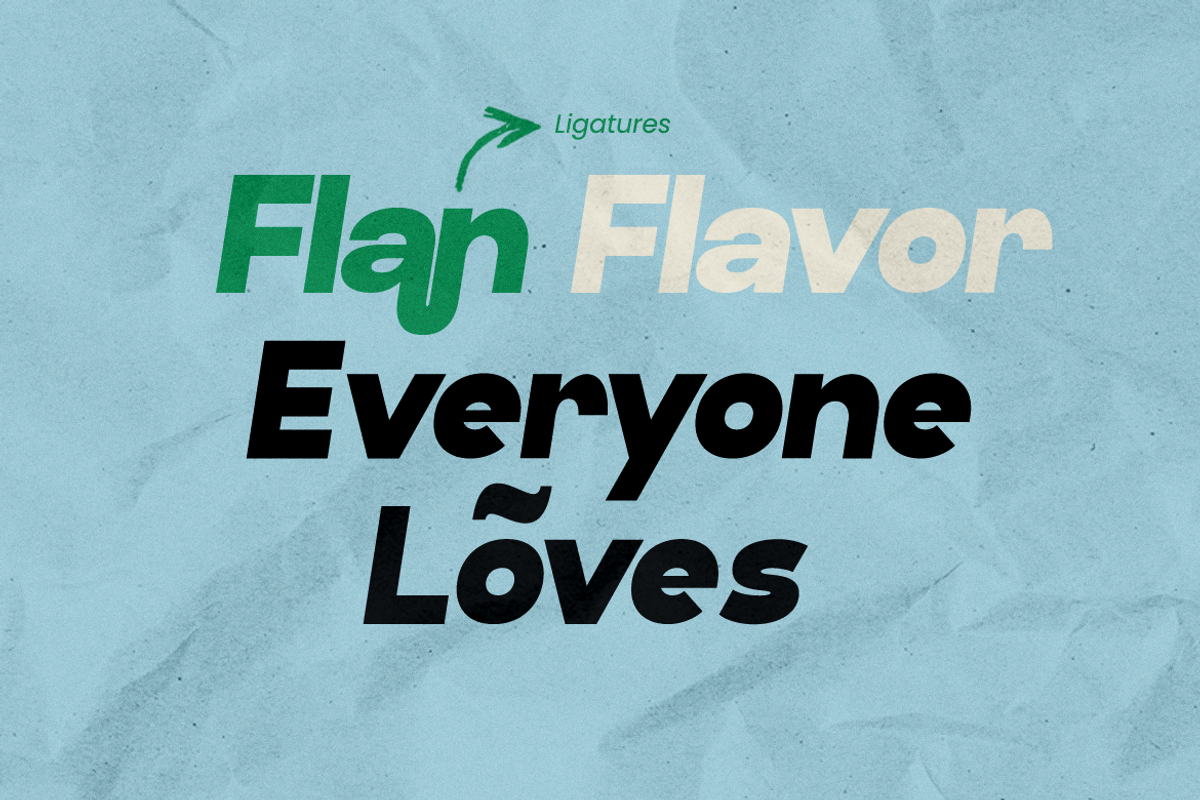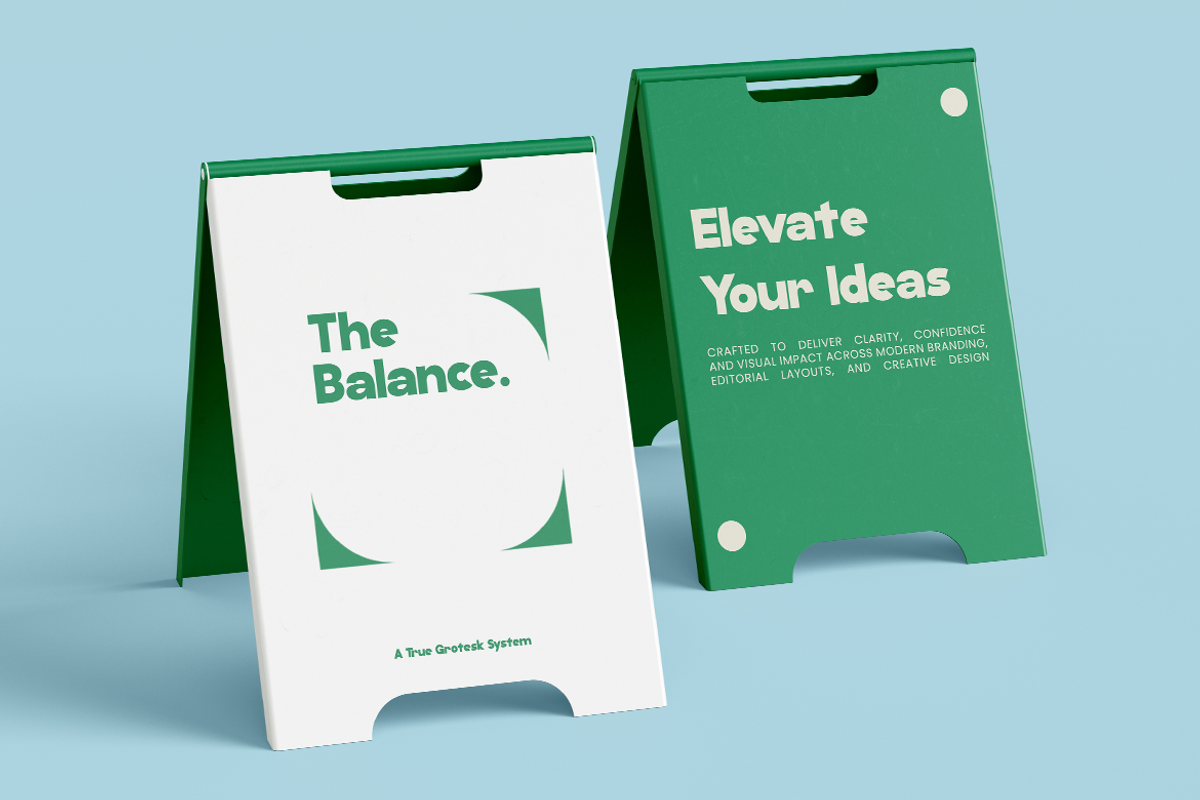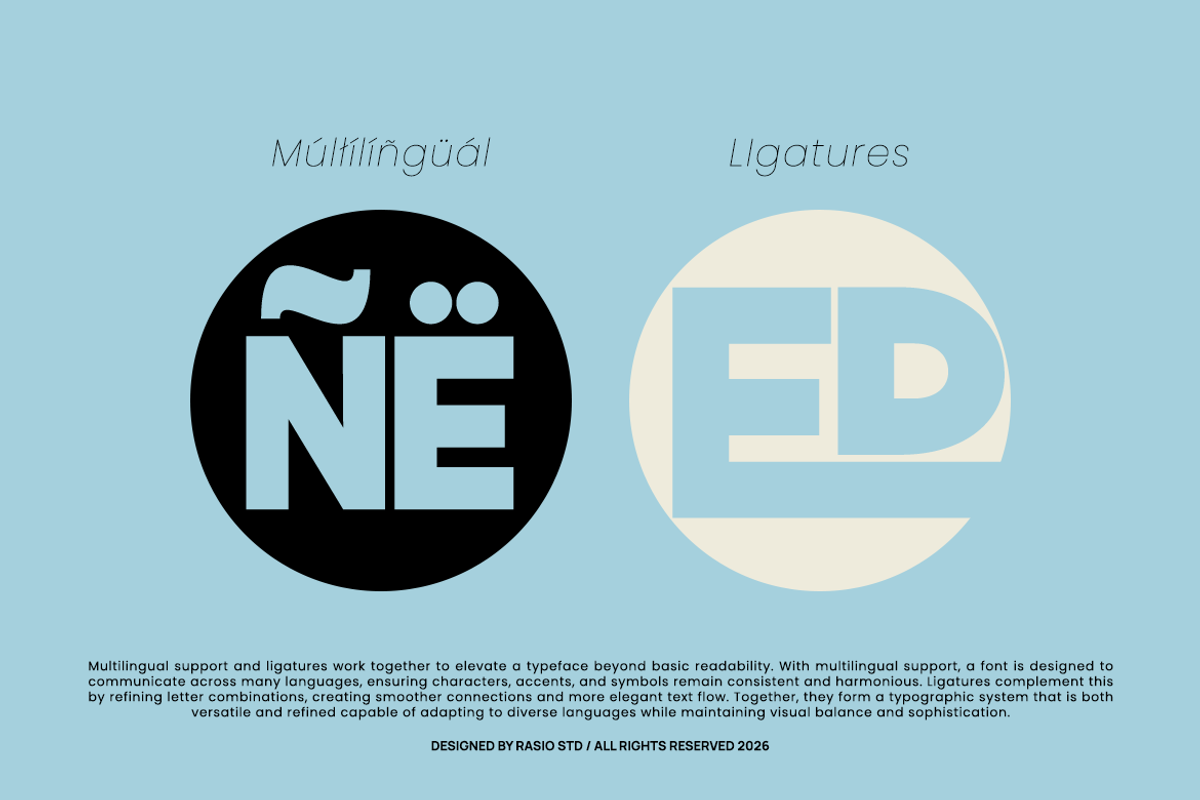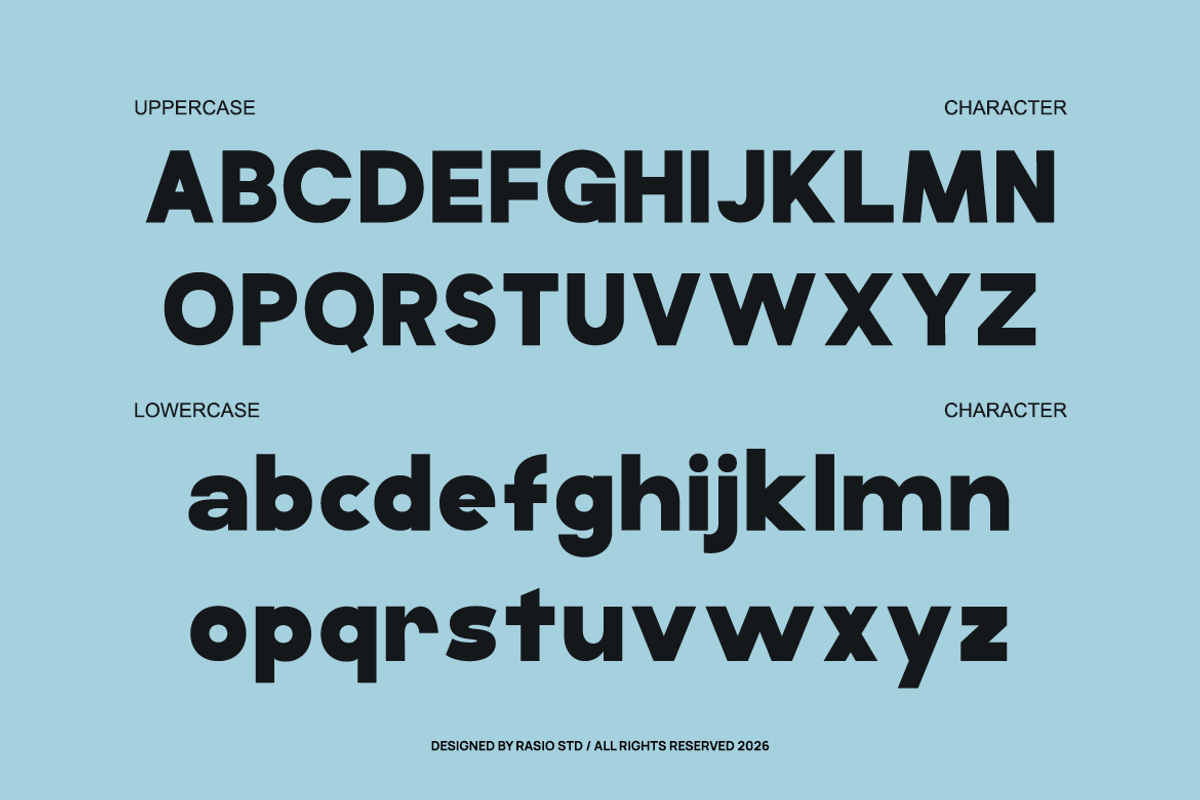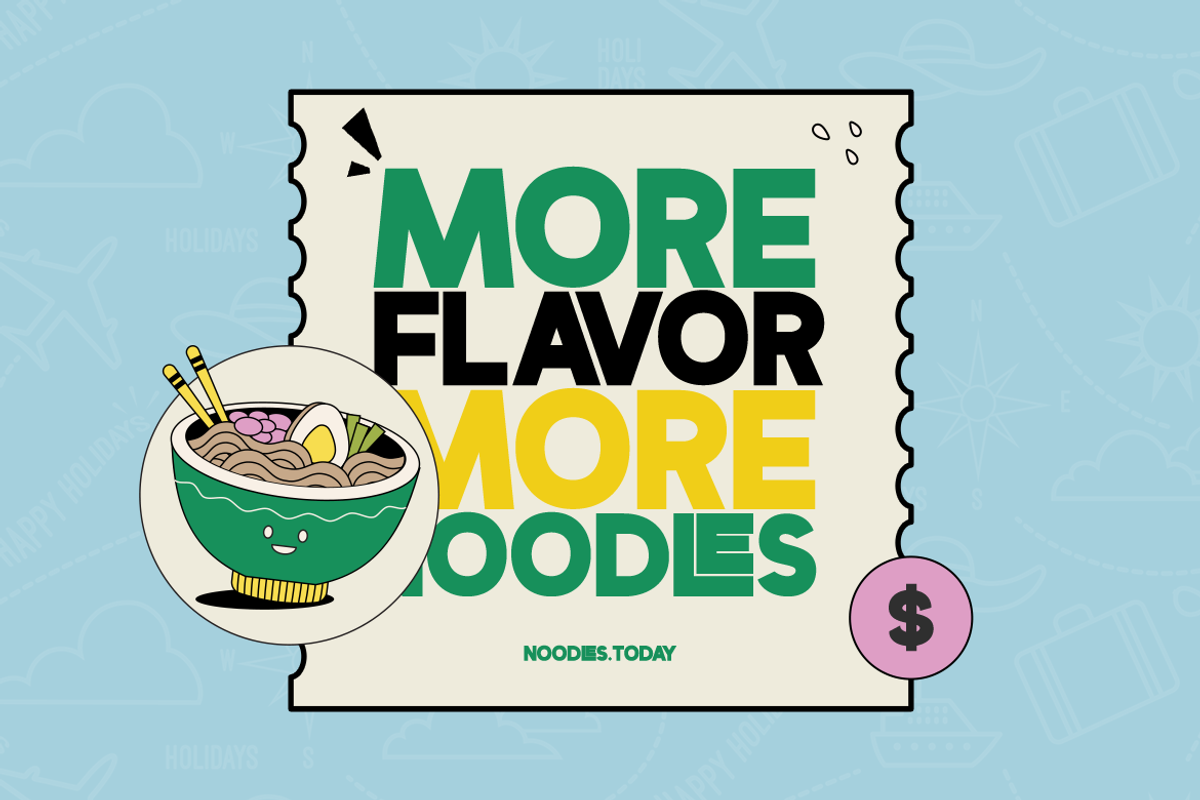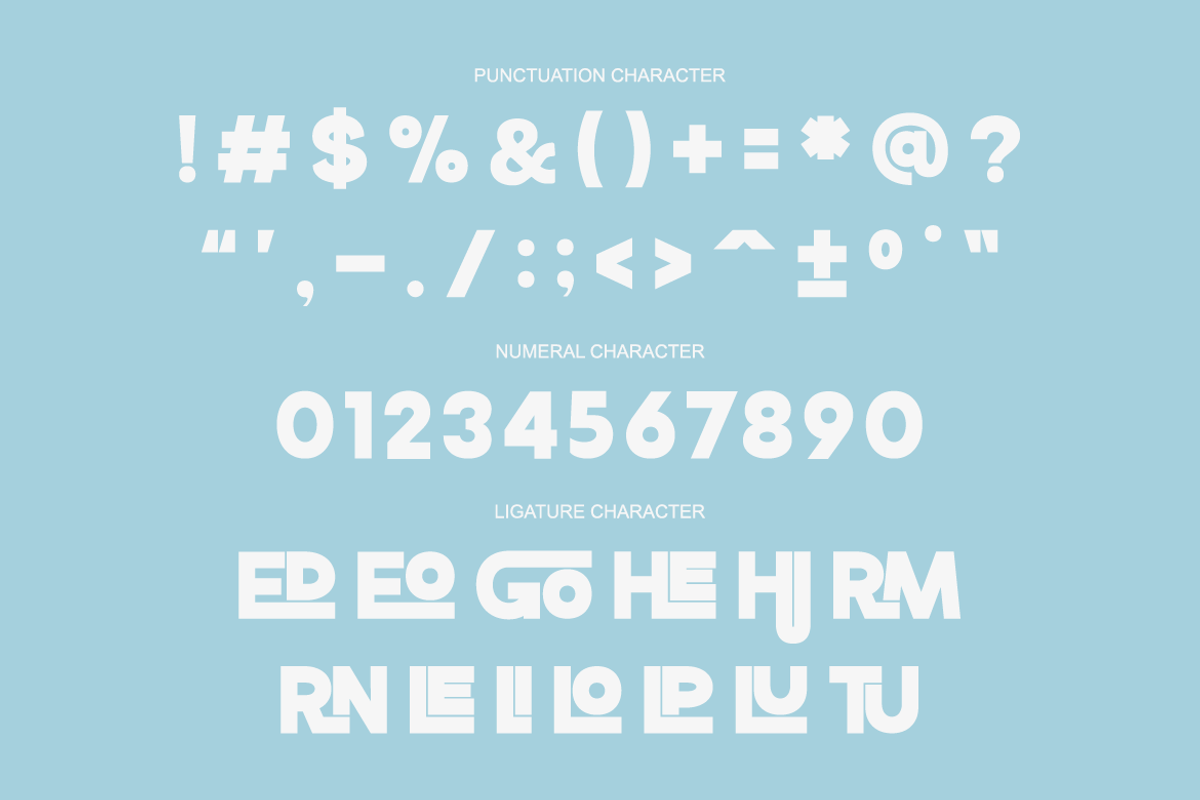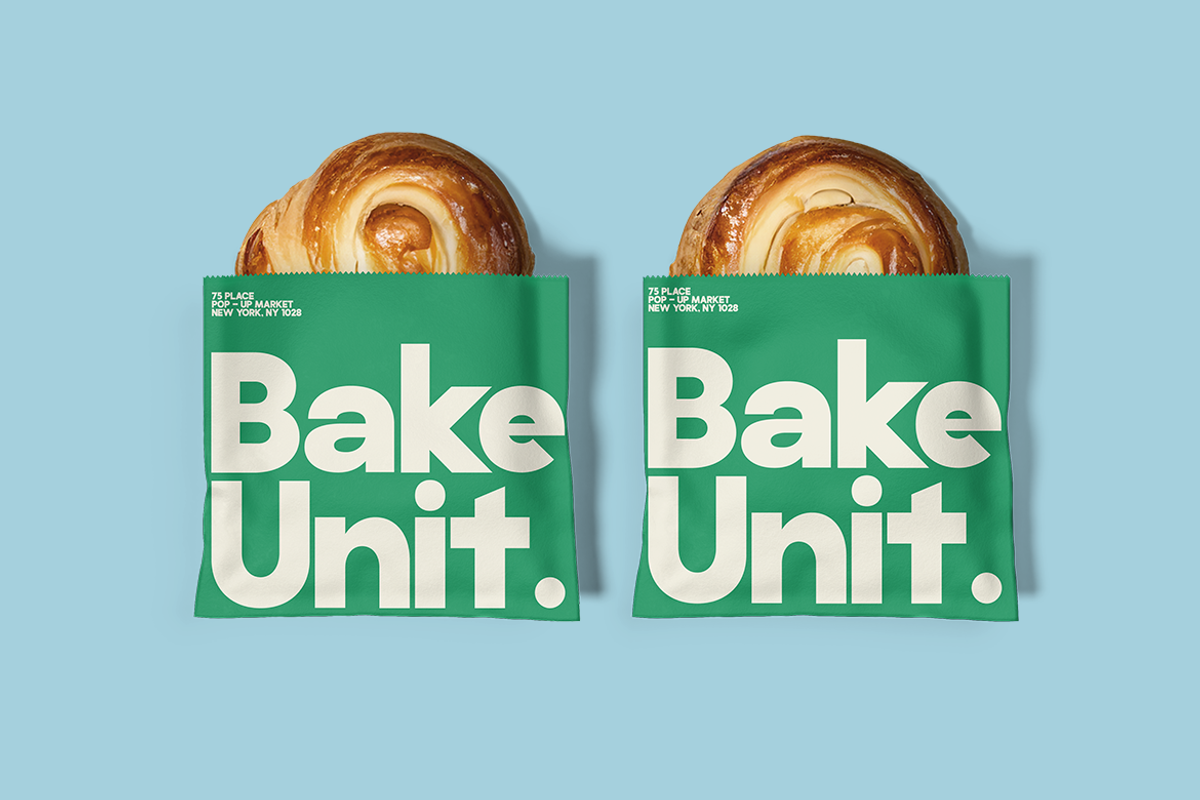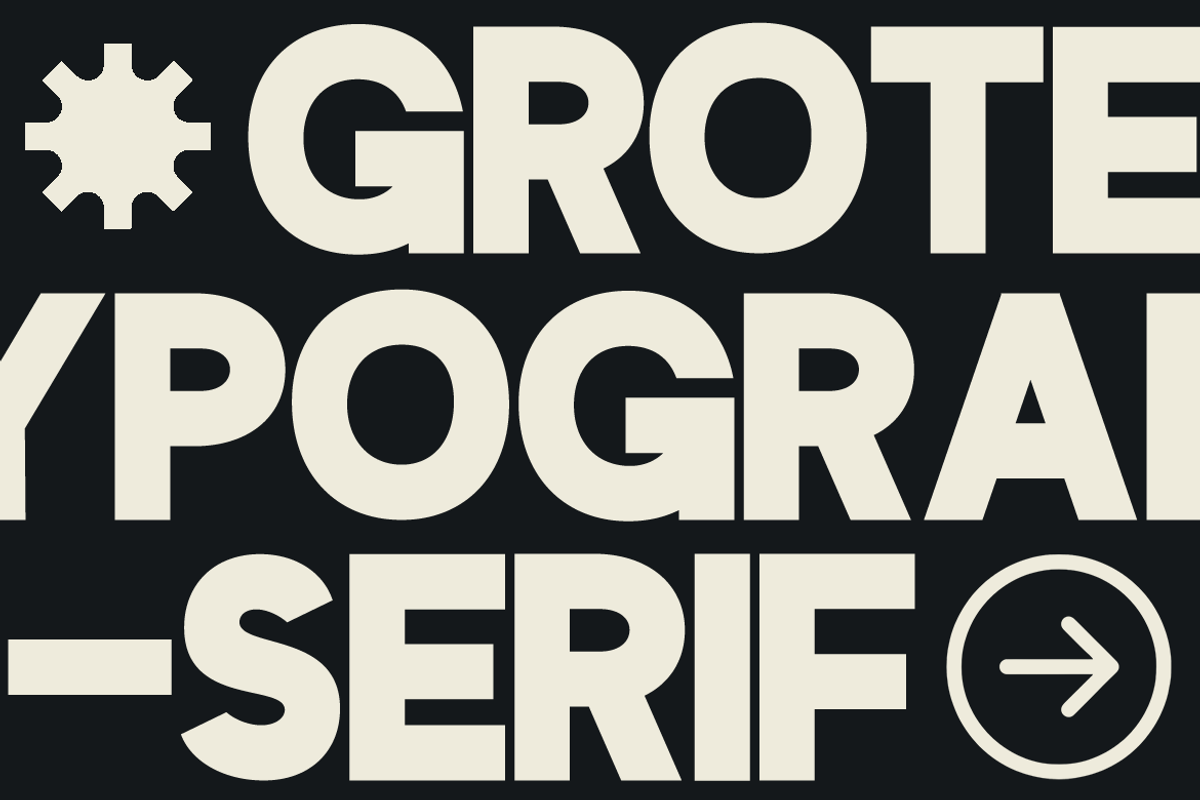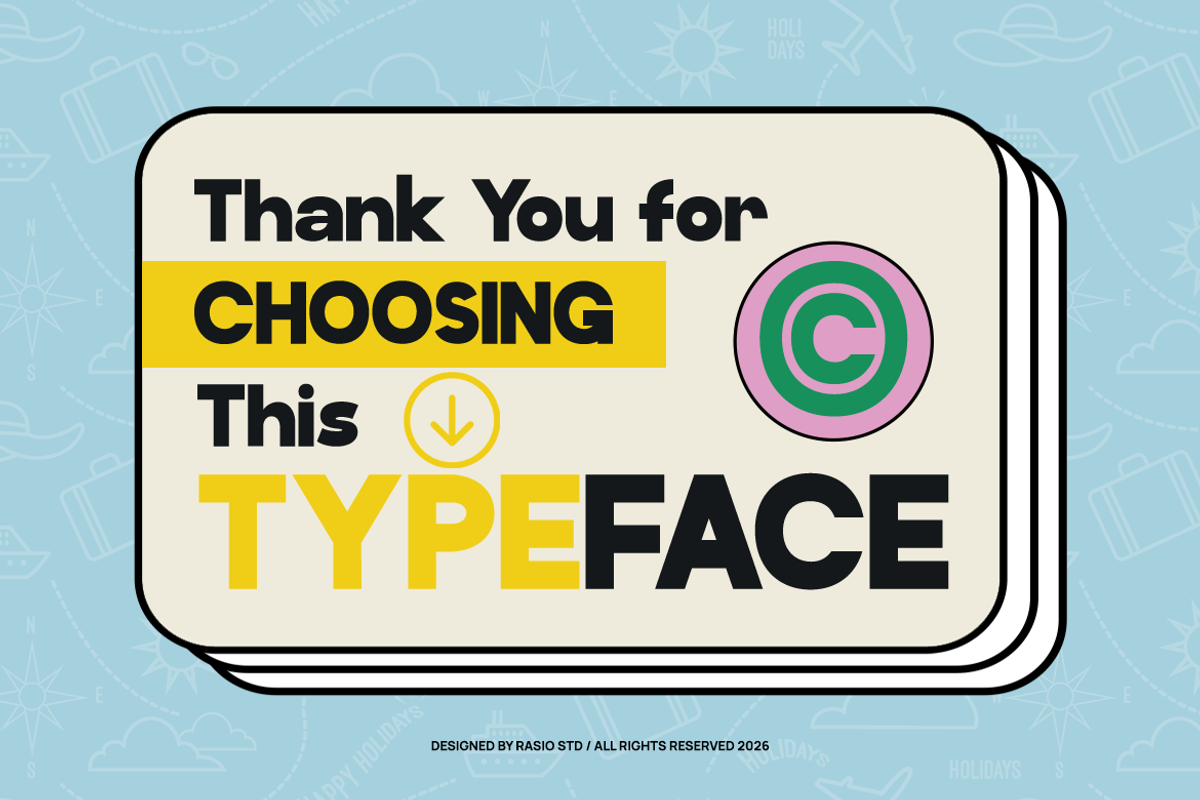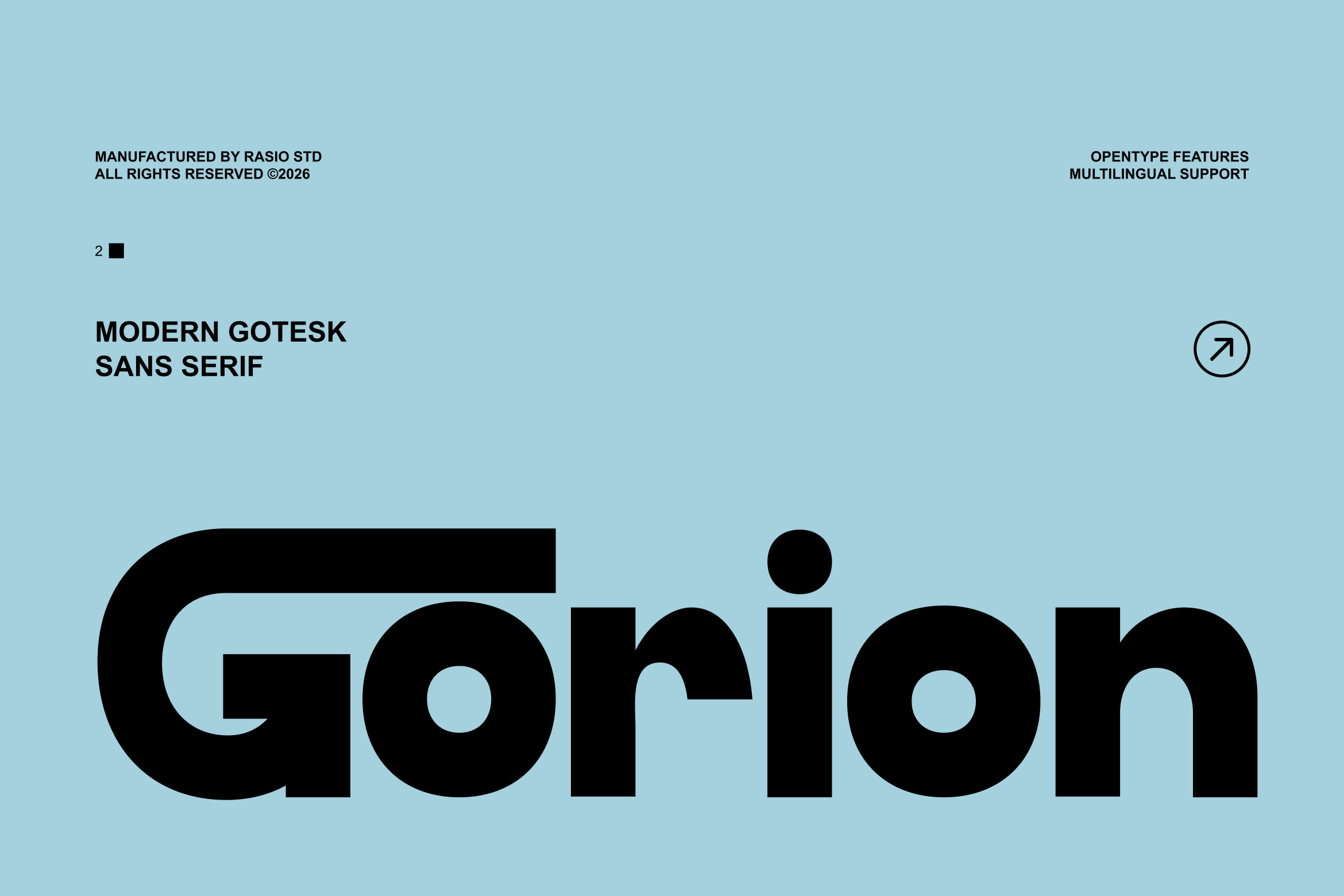
Gorion Modern Grotesk Sans Font
Gorion is a modern grotesk sans serif font designed with strong geometric balance and clean contemporary proportions. The letterforms feature bold strokes, smooth curves, and a structured vertical rhythm that create a confident and modern typographic presence. This typeface includes uppercase, lowercase, numerals, punctuation, and OpenType ligatures with multilingual support.
Gorion is ideal for modern branding systems, corporate identity design, editorial layouts, website typography, UI/UX design, posters, packaging, advertising campaigns, and contemporary graphic design projects. The bold grotesk structure provides strong visual clarity that works effectively for both professional and creative applications.
- Bold modern grotesk structure with strong geometric proportions
- Clean, uniform stroke weight creating a solid and contemporary appearance
- Rounded counters and smooth curves that improve clarity and readability
- Carefully balanced spacing designed for strong headline presence
- OpenType ligatures and multilingual characters supporting modern typography systems
- Brand identity systems that require a bold and modern typographic presence
- UI/UX design templates for contemporary websites, dashboards, and mobile apps
- Editorial layouts and magazine headlines with strong visual hierarchy
- Product packaging and advertising materials that need impactful typography
- Social media graphics, posters, and marketing campaigns with confident modern style